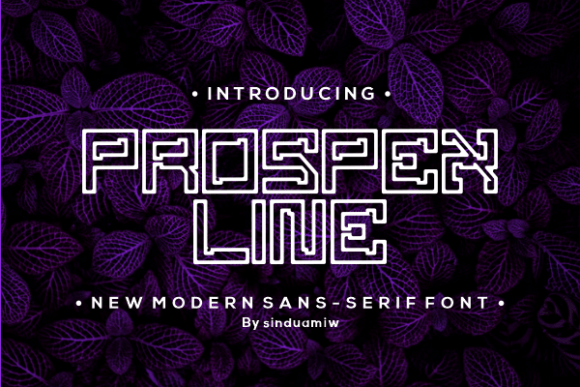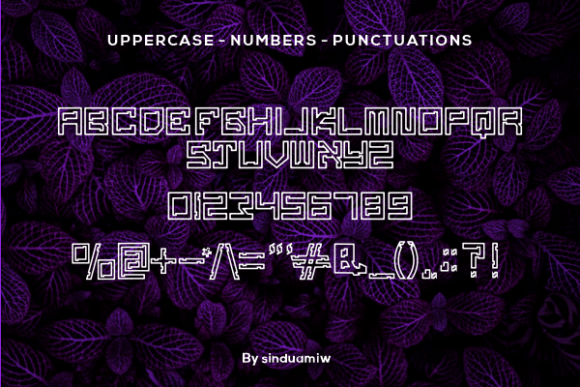
Prospex Line Font
PROSPEX LINE FONT SPECIMEN
Prospex Line is a modern and creative outlined slab serif font. It is perfect for magazines, book covers, posters, banners, advertisements, flyers, and so much more.